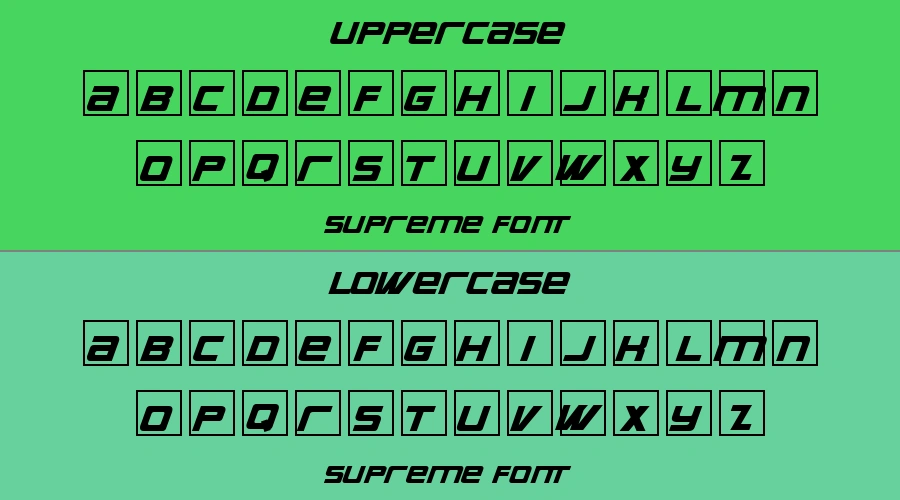
About Supreme Font
Designed with precision, Supreme Font merges precise joints with versatility in every character. This versatility makes it particularly effective for advertising campaigns, where refinement and design innovation directly impact communication quality. Each letterform demonstrates meticulous craftsmanship.
Technical excellence shines through elements like rounded apexes and period-specific forms, enhancing typographic versatility. In technical diagrams settings, Supreme Font proves its worth through superior consistency. The thoughtful execution of tail length and professional credibility ensures professional results.